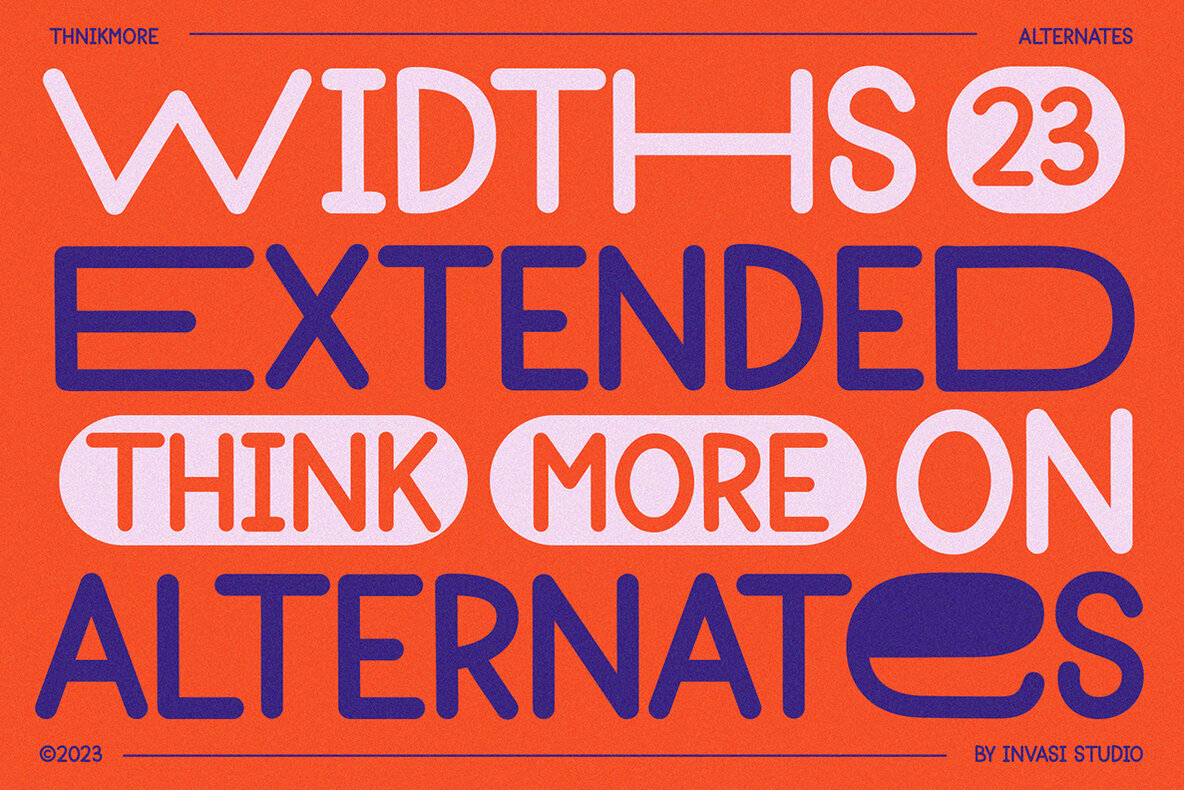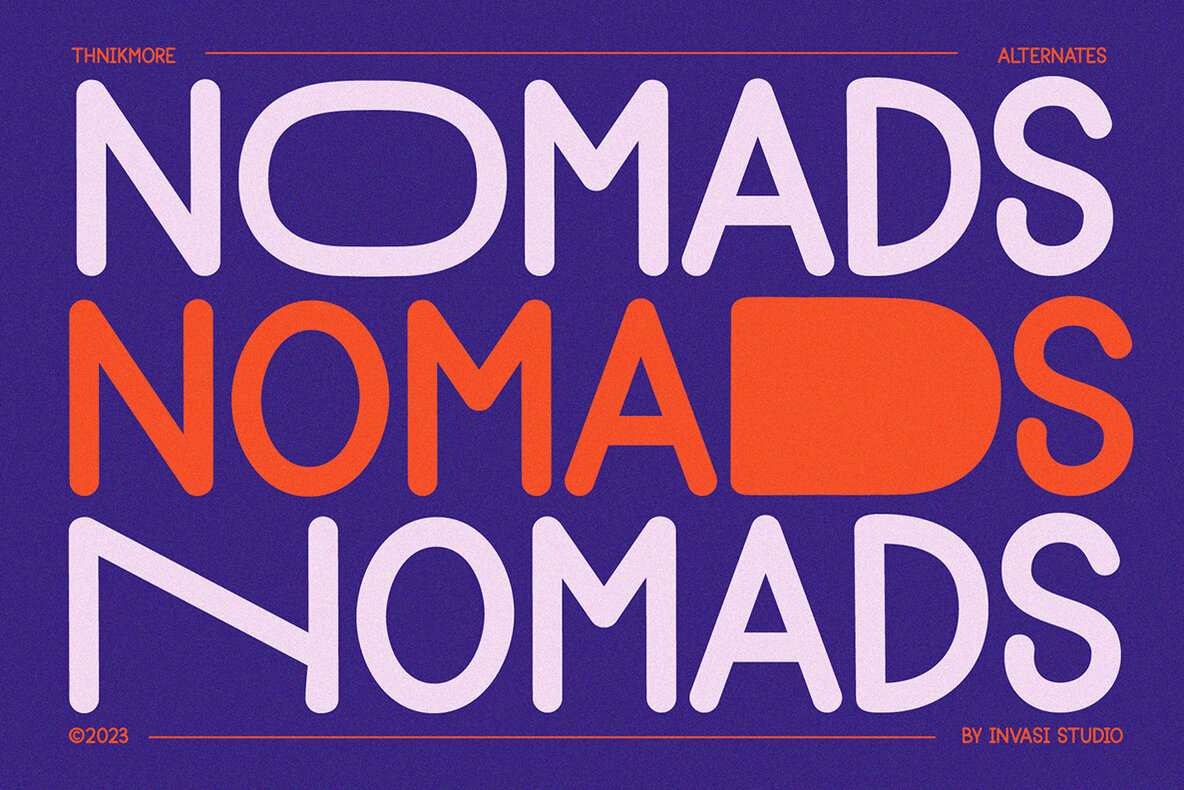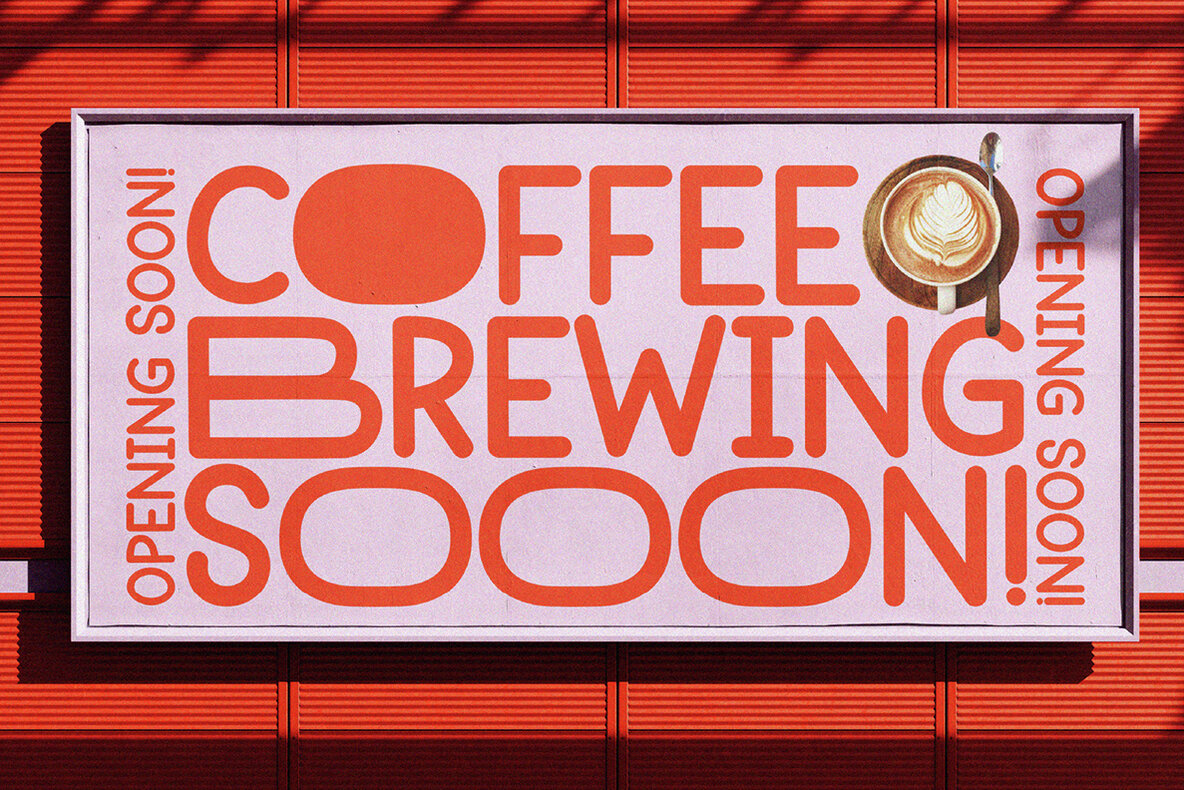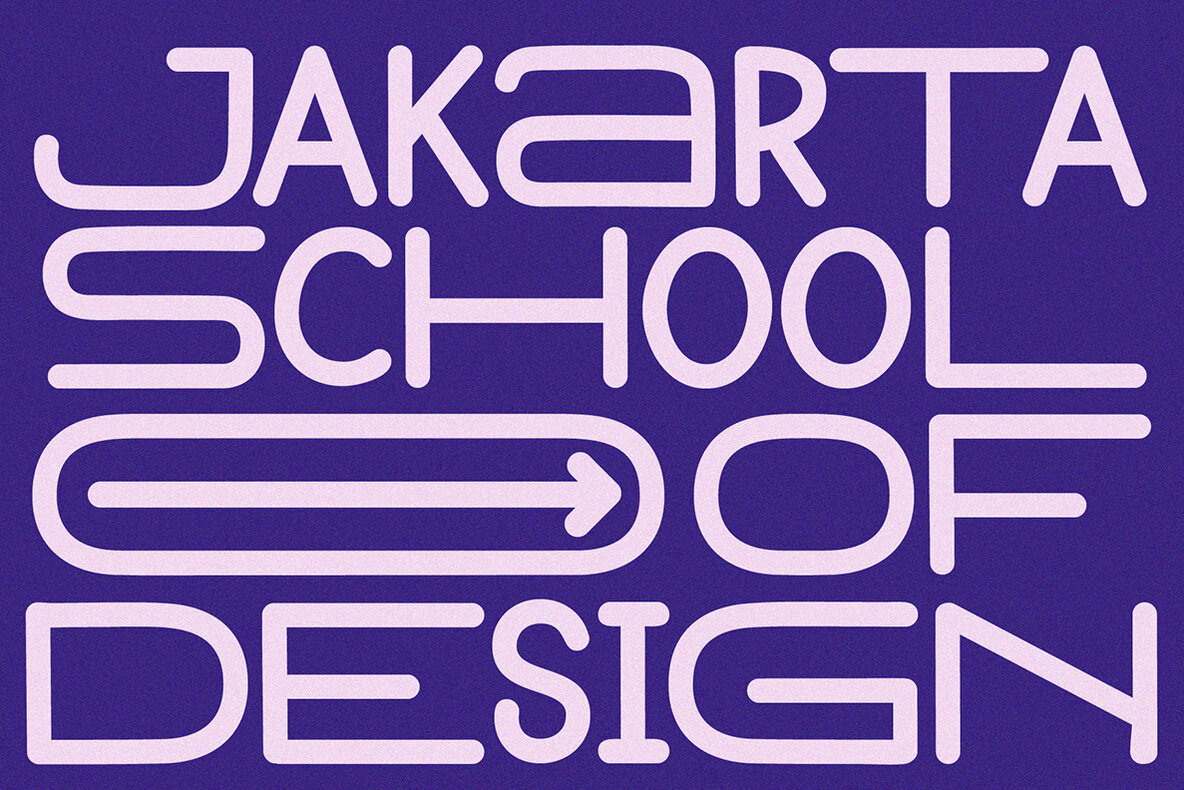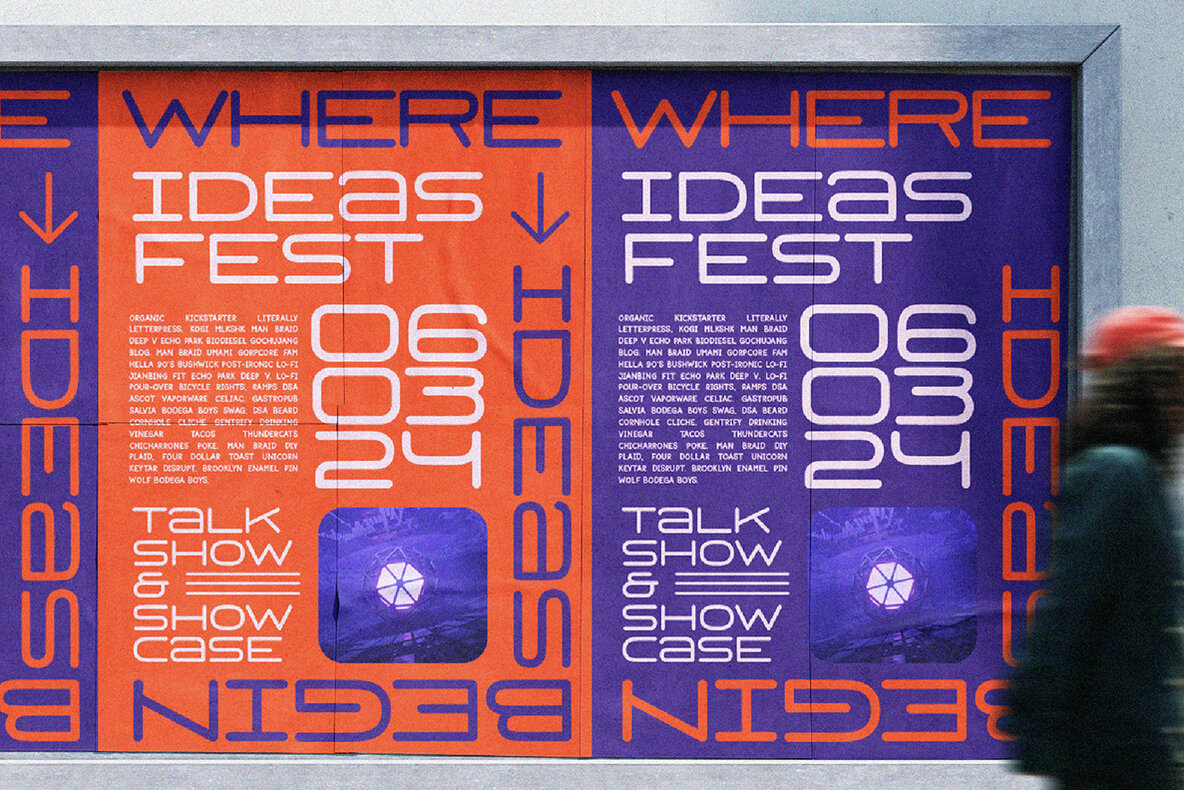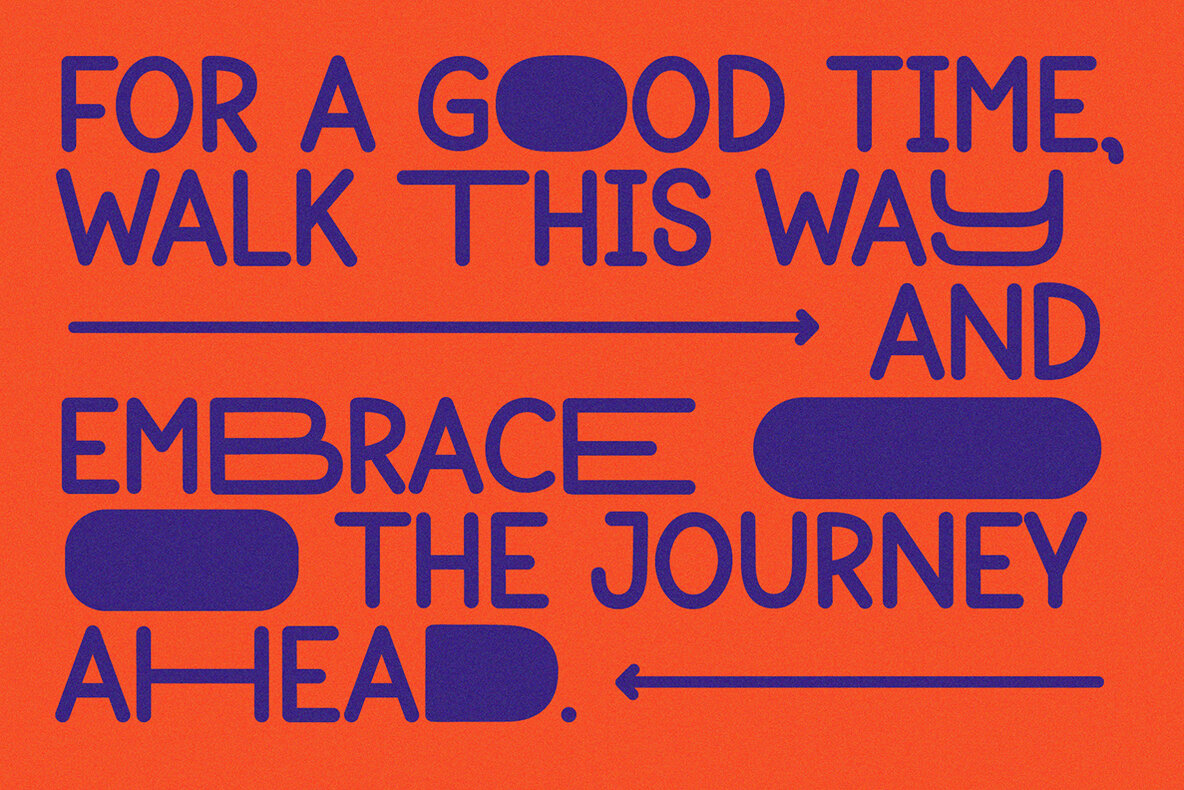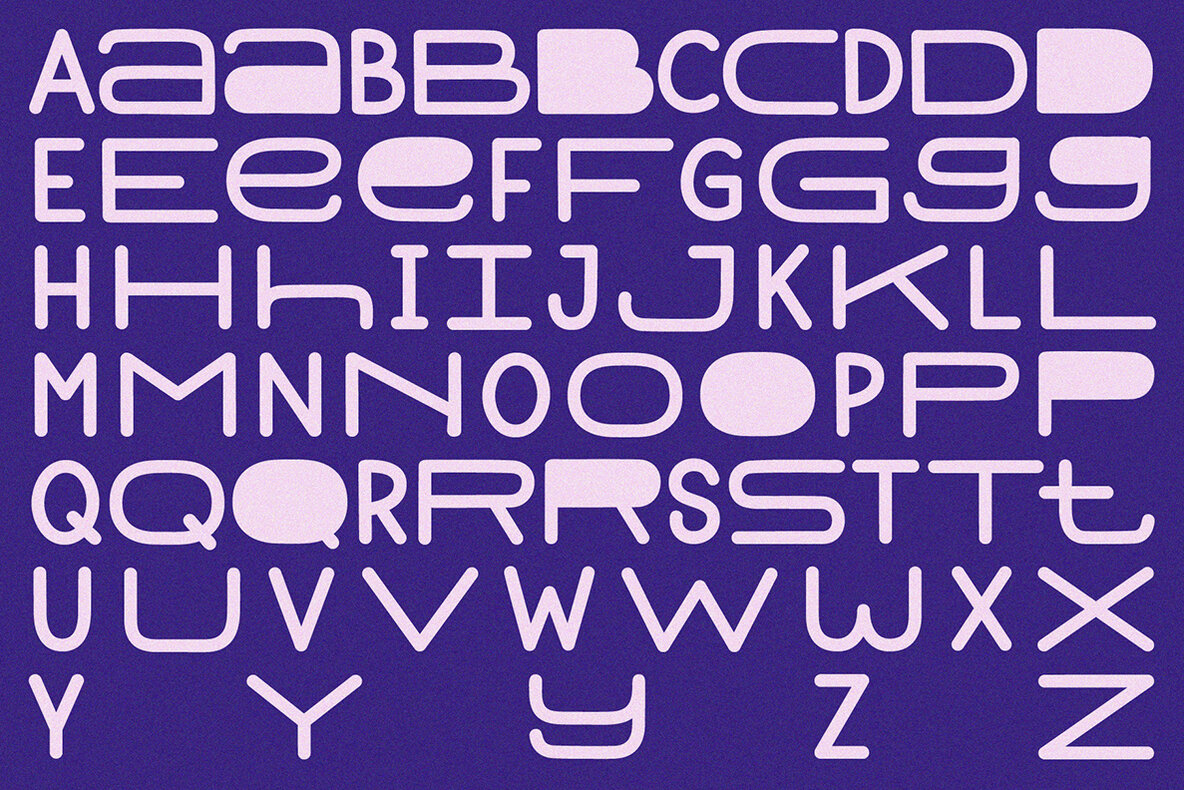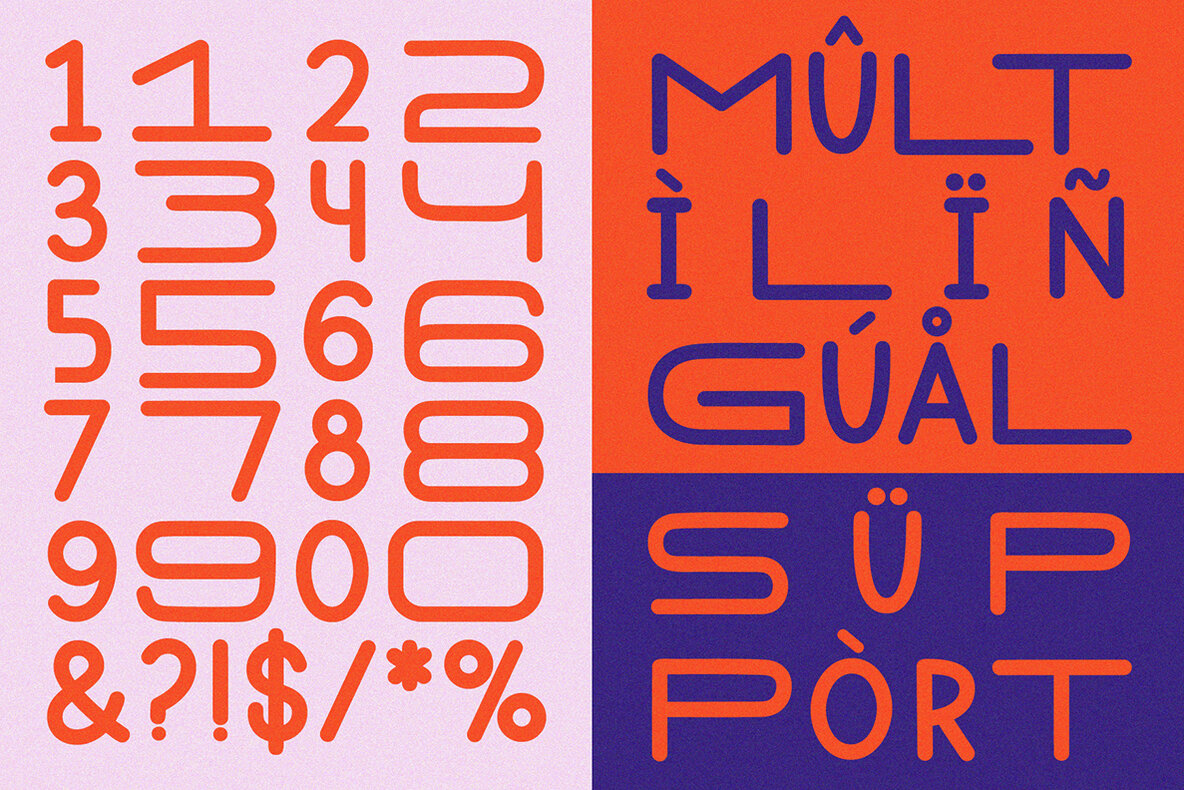
Thinkmore Font
Thinkmore Regular
Thinkmore is a playful and modern display font that adds a touch of fun and creativity to your designs. With its clean monoline stroke style, this font exudes a contemporary and stylish look. The all-caps font comes with a complete set of A-Z alternates in a wide playful style, allowing you to experiment and create unique combinations that suit your project perfectly. Thinkmore also supports multilingual characters, making it versatile for various language requirements. Ideal for a range of display projects, Thinkmore is perfect for headings, logotypes, flyers, greeting cards, product packaging, book covers, and printed quotes. Whether working on a fun and quirky design or aiming for a more modern and minimalist approach, Thinkmore has the flexibility to adapt to your creative vision.